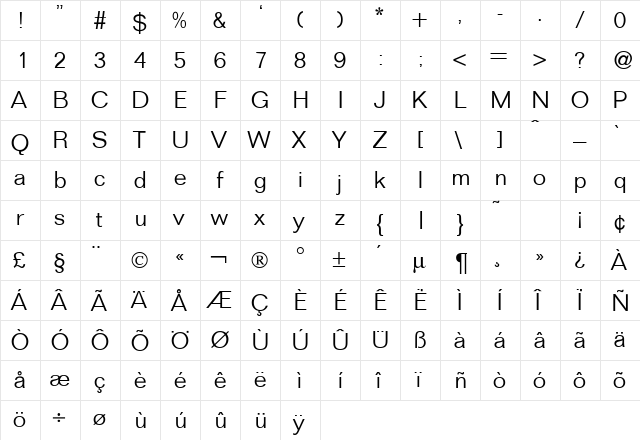
FolderLightDB Normal Font Preview
FolderLightDB Normal
FolderLightDB Normal Font Details
Design Context for FolderLightDB Typeface
FolderLightDB is a composed and adaptable typeface that performs quietly and consistently across a wide range of design contexts. The delicate stroke weight brings airiness and refinement to layouts.
Pro Tip: Use FolderLightDB in both headline and body roles to test its range before committing to a single application.